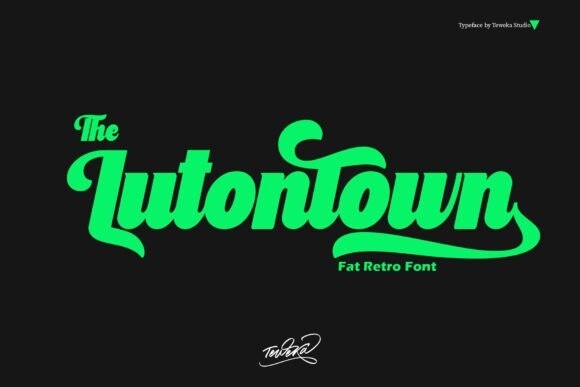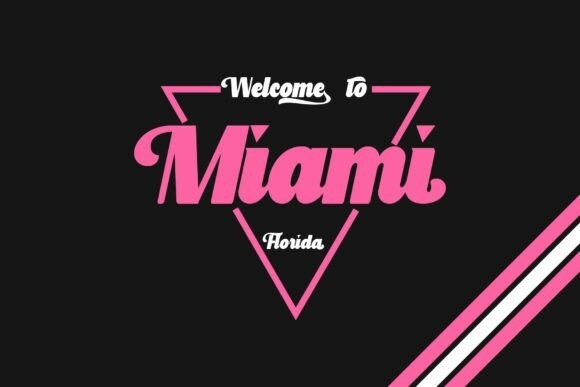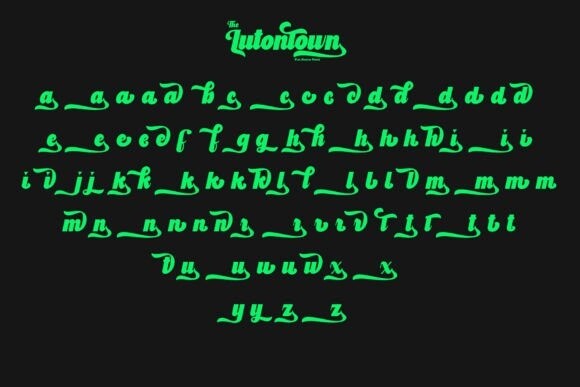
The Lutontown Font
The Lutontown Font is a font with a unique style inspired by triangles, there are several triangle shapes in the letters. This font is perfect for branding, logos, etc